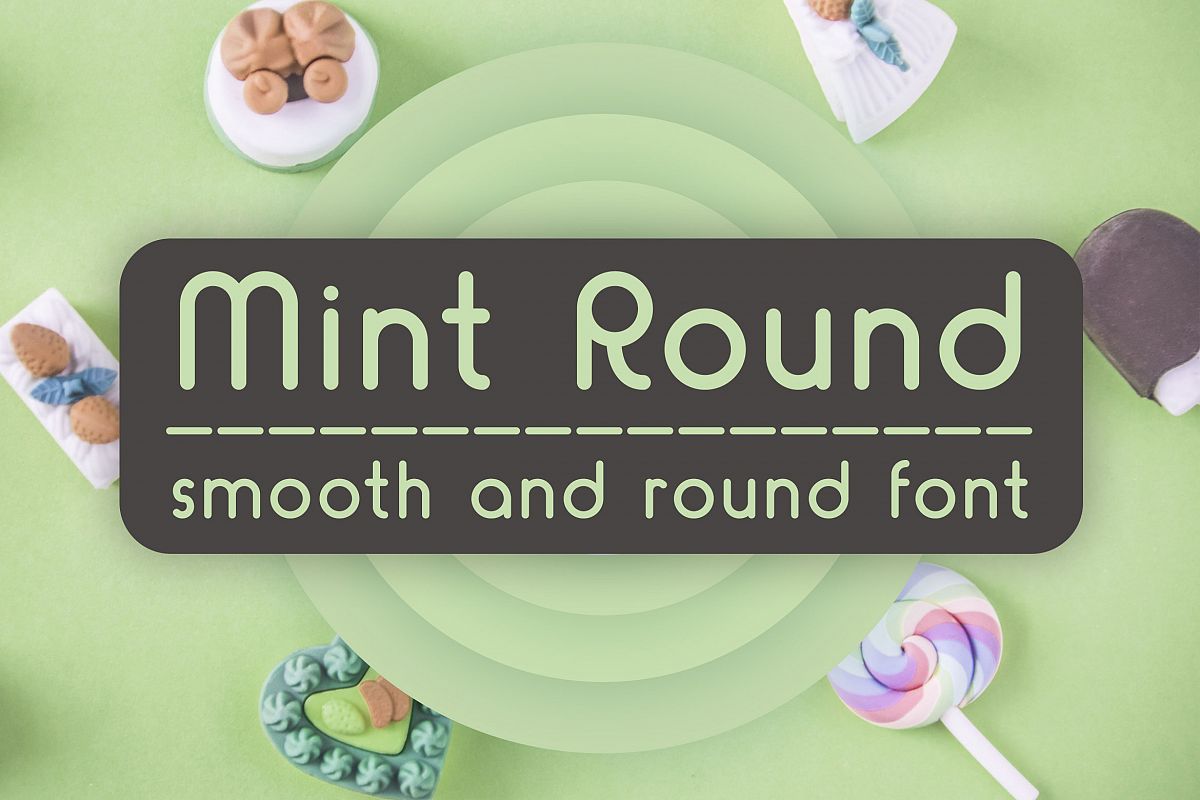
Mint Round is a new geometrical playful font with solid, outline, inline variations.
Mint Round font will perfectly shows the positive vibes with the round corners and smoothness.